How are you all faring in the circus that is life?? I am coming to you with a regular old update! Now that Yolker is done, I want to talk about whatโs coming next at TDN! I have resumed working on Weightless. If youโve been around for a while, you may remember it from Week 50 of the 52 Fonts Project. Itโs a revival of the Olympus typewriter font, Senatorial.
Despite searching high and low, I have never seen a digital version of it. Thereโs something about it that I have been absolutely hooked on since I saw it in a zine in Palm Springs a few years ago. Itโs such an oddly old school yet futuristic typeface โ I couldnโt resist.
Weightless keeps coming back up for me is because, admittedly, itโs one of the few text weight typefaces I have in my library. And I often reach for it in my own design work because it scratches a similar itch that Courier did back in my Myspace/AIM days. It has that emo yet sophisticated feeling that all us mysterious weirdos were always trying to evoke online.
I definitely carried my love for Courier into my college graphic design years and itโs still one of my fave system fonts to this day. Its just got something going on!! I donโt know how to explain it. My goal for Weightless is to fill a similar role. I want it to look good in text but also halfway decent if you blow that sucker up to a display size. This is perhaps a lofty goal but your girl dgaf!!
I am going to level with you, I really thought that Weightless was a lot closer to being done but I made a robust proof and gave it a once-over with fresh eyes. Unfortunately, she needs a bit of an overhaul! Because I made it during the 52 Fonts project, it was made quickly and therefore some things arenโt up to my current typographic standard.
One of the main aspects to revisit is the rounded corners. I am pretty sure I just ran it all through the filter Glyphs has and it didnโt bug me before. But now that I working on it again, I really want to change it. Itโs a matter of adjusting the bezier handles but unfortunately this will be for every! Single! Glyph! Ugh.
There have also some things that have bugged me about the joins for letters like b, d, n, m, p, q, etc. The original source had flat, square joins but for my modern sensibilities, Iโd prefer some contrast there. I donโt know if I have found the correct amount of contrast yet but itโs feeling better already.
Besides those overall changes, I have a few small things I want to make better. I am excited about the possibilities of this typeface and I am excited to get it out into the world. I donโt have a timeline yet but I am riding the high of releasing Yolker and am feeling good about getting Weightless out there!!
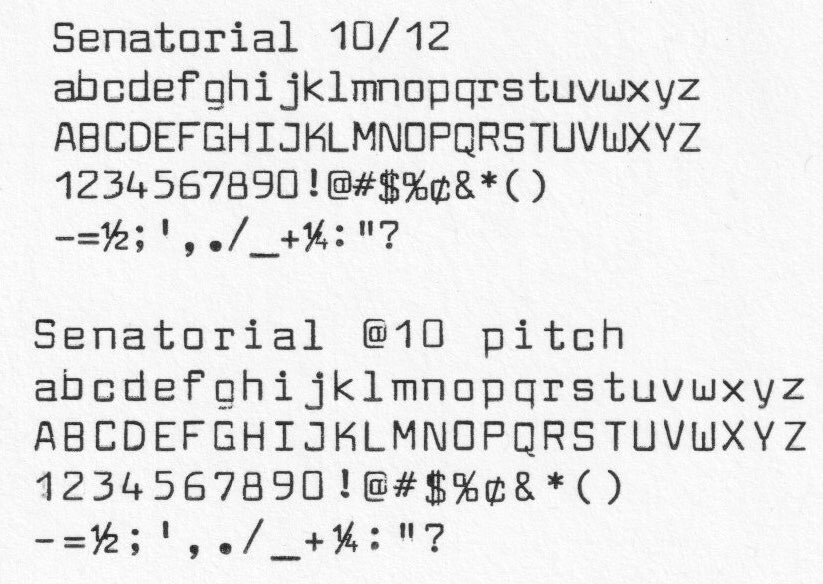
me trying desperately to spot the difference between the before and afters...